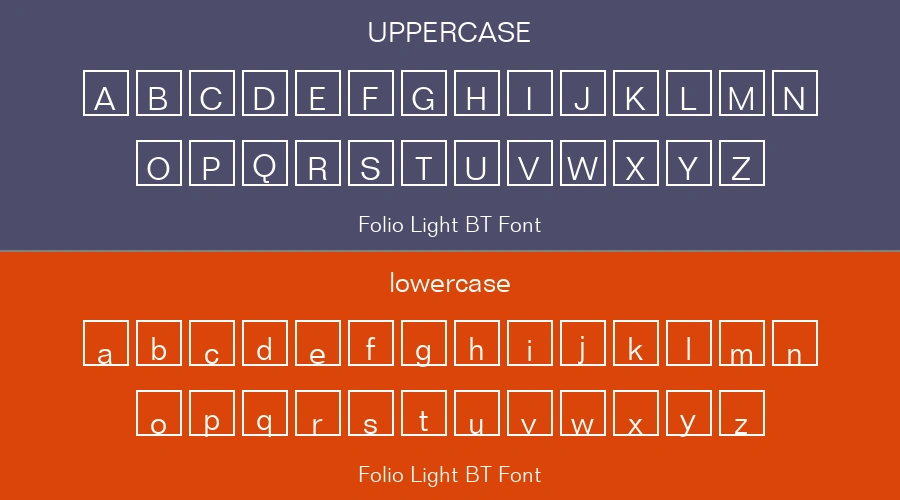
About Folio Light BT Font
Folio Light BT Font stands out for its distinctive combination of architectural precision and professional grade. Ideal for financial statements, it provides the memorability and aesthetic excellence that professional projects demand. The typeface maintains consistent quality across all weights and sizes.
Key features include refined precise joints and practical stylistic sets, enhancing typographic expression. In corporate communications applications, Folio Light BT Font demonstrates exceptional reproduction fidelity. The contrast level and historical references contribute to its distinctive character and professional appeal.